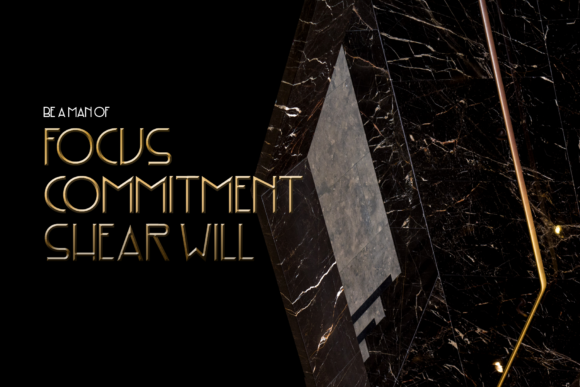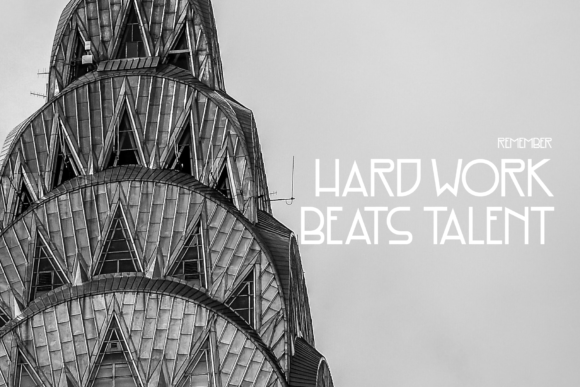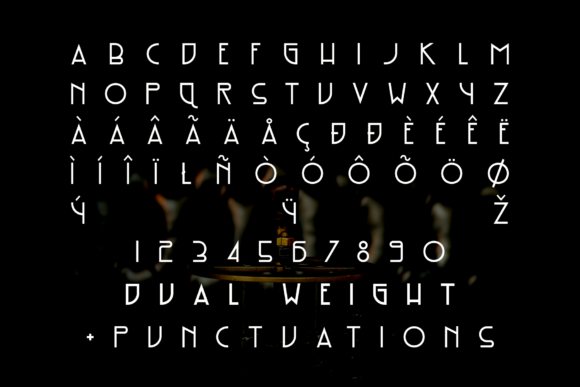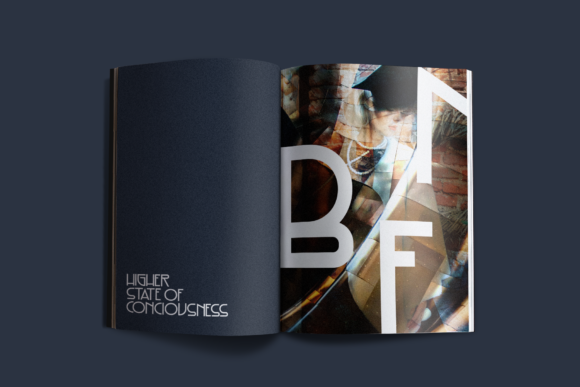
Introduction to Greco Font
Have you ever stared at a blank canvas, feeling like the perfect design is just out of reach? You’ve got a spark of creativity, but it’s hard to bring it to life. That’s where the Greco Font comes in – a game-changing design resource that can take your creative project to the next level. With its unique Greek influences, this high-quality font is a breath of fresh air for designers looking to add some personality to their work.
Imagine being able to convey the perfect balance of elegance and sophistication with a single font. The Greco Font offers a transparent background, allowing it to seamlessly integrate with any design. Whether you’re working on a personal or professional project, this versatile font is sure to be a valuable addition to your design arsenal. And the best part? It’s available for a free download, making it an absolute must-have for designers of all levels.
Key Features of Greco Font
- Unique, modern design with a distinctive flair, perfect for adding a touch of elegance to any creative project.
- Includes a comprehensive character set, covering a wide range of languages and characters.
Honest Review: Greco Font
- High quality design: The Greco Font is crisp and clean, making it perfect for a variety of creative projects.
- Transparent background: The font’s transparent background allows for easy integration with any background design.
- Professional look: The Greco Font gives any design a professional and sophisticated look.
- ⚠️ Limited font variations: While the Greco Font is well-designed, it only comes in a few font variations, which may limit its use in certain creative projects.
Overall, I’m impressed with the Greco Font. It’s a great option for designers looking for a high-quality, free font. While it may have some limitations, it’s a great addition to any design resource.
How to Use Greco Font
The Greco Font is a high-quality design resource ideal for creative projects. Its versatility and unique style make it a popular choice among designers. With a transparent background, this font can be easily integrated into various design platforms.
Tips for Getting the Most Out of Greco Font
To maximize the use of the Greco Font, experiment with different font sizes, colors, and combinations. You can also use it in conjunction with other design elements to create a visually appealing effect.
The Greco Font is suitable for a wide range of creative projects, including:
- Print materials
Conclusion
The Greco Font is a valuable addition to any design library. With its high-quality design and transparent background, it can elevate your creative projects to the next level. Take advantage of the free download and start experimenting with this versatile font today.